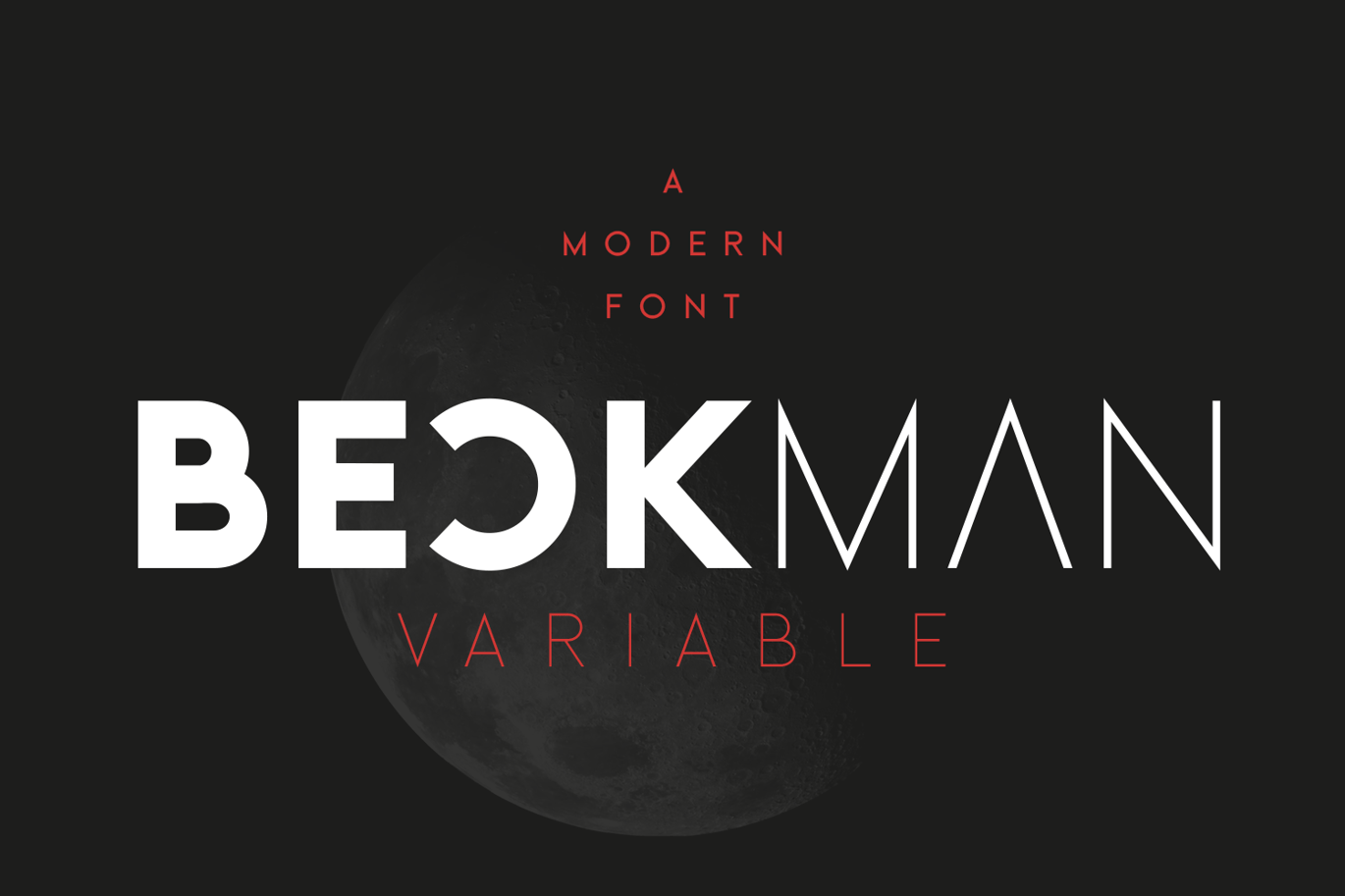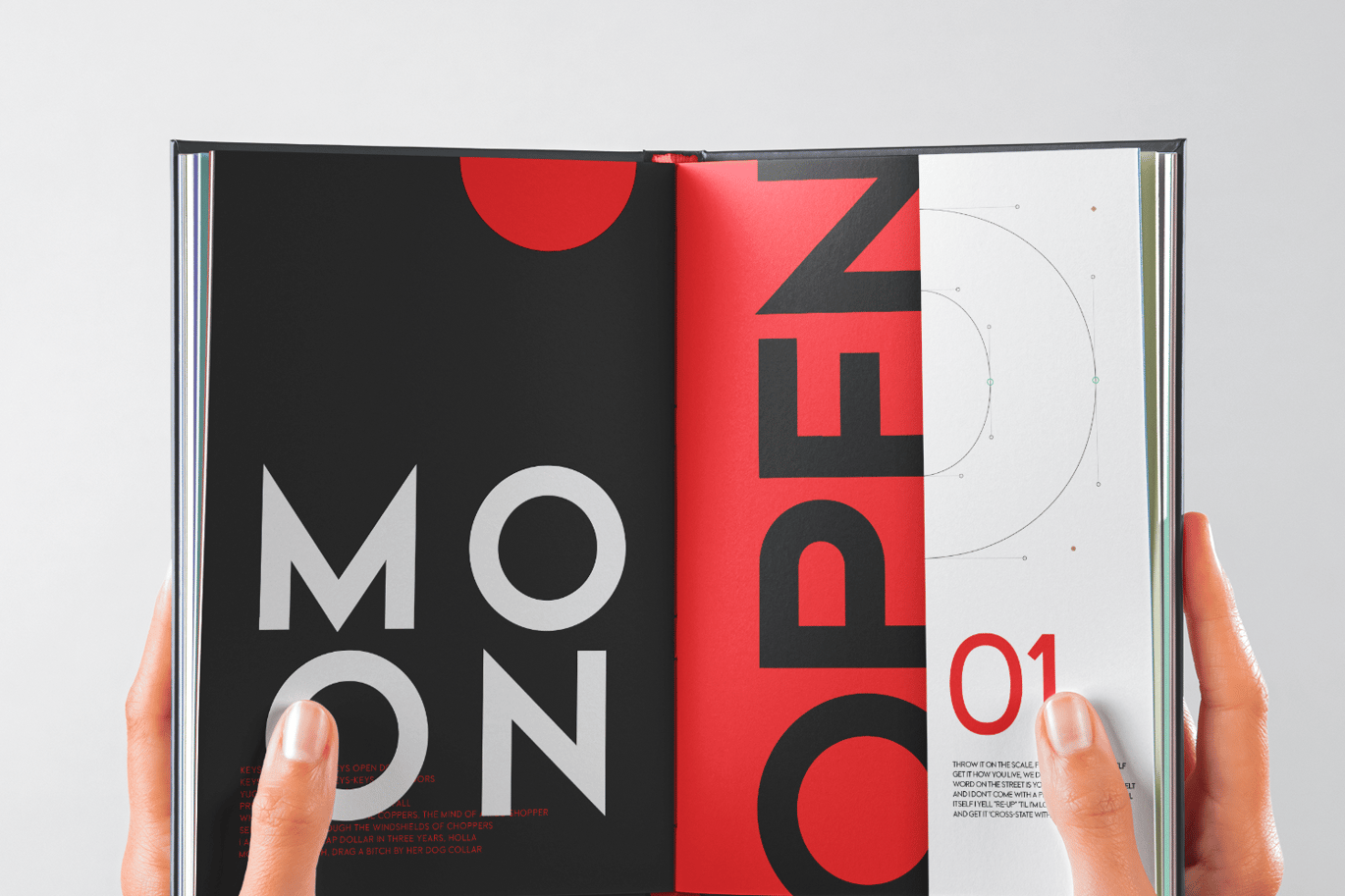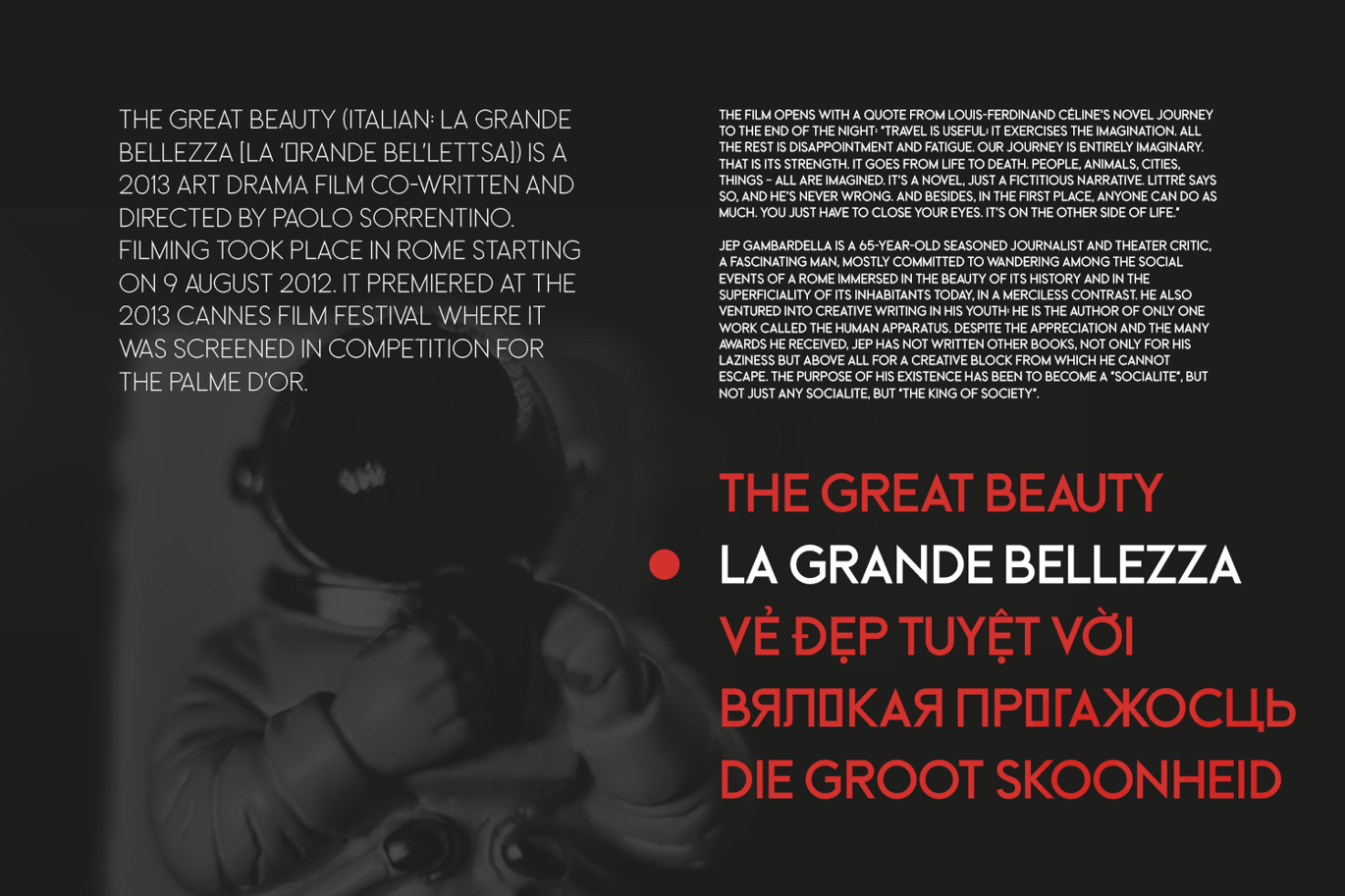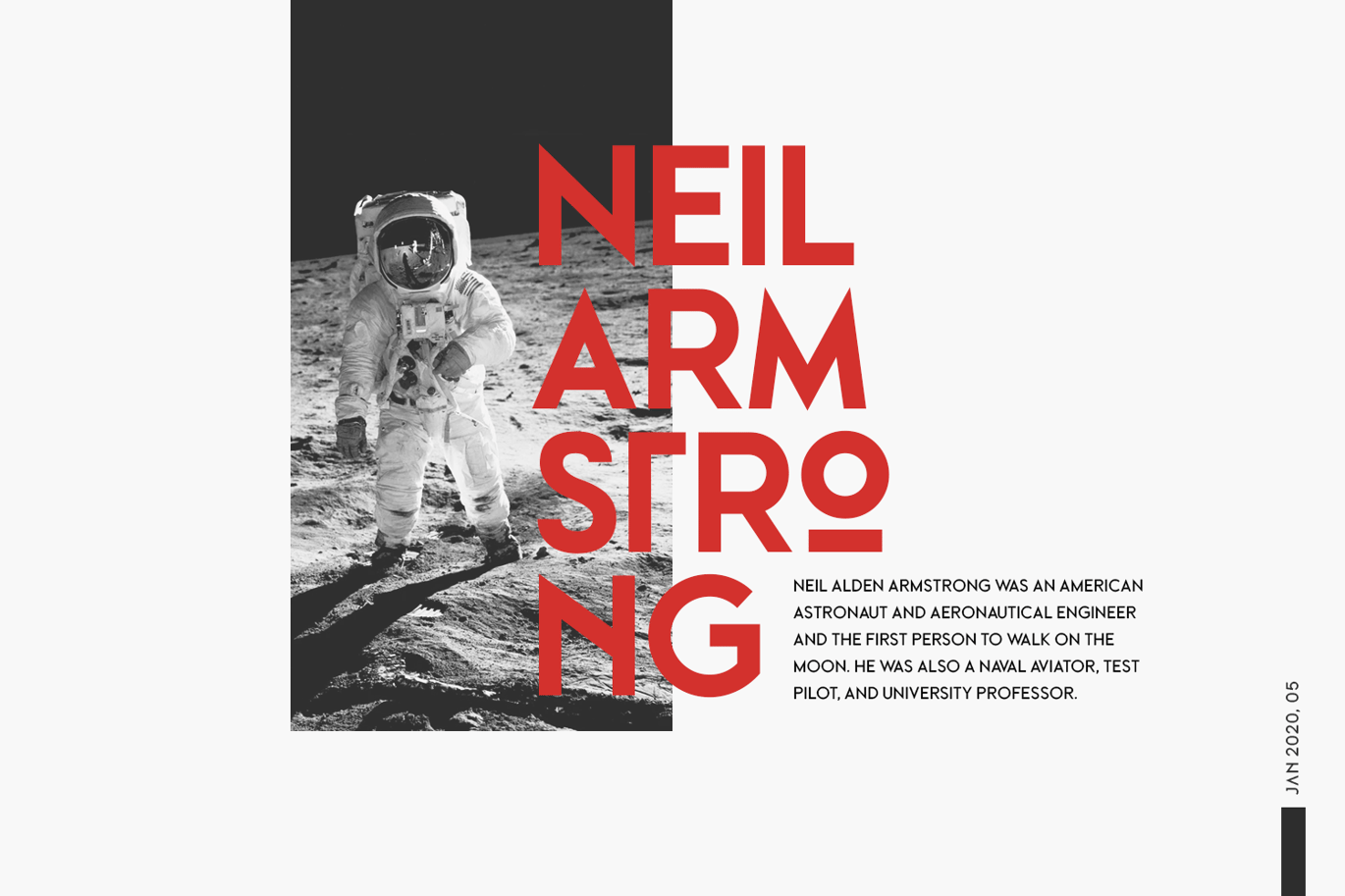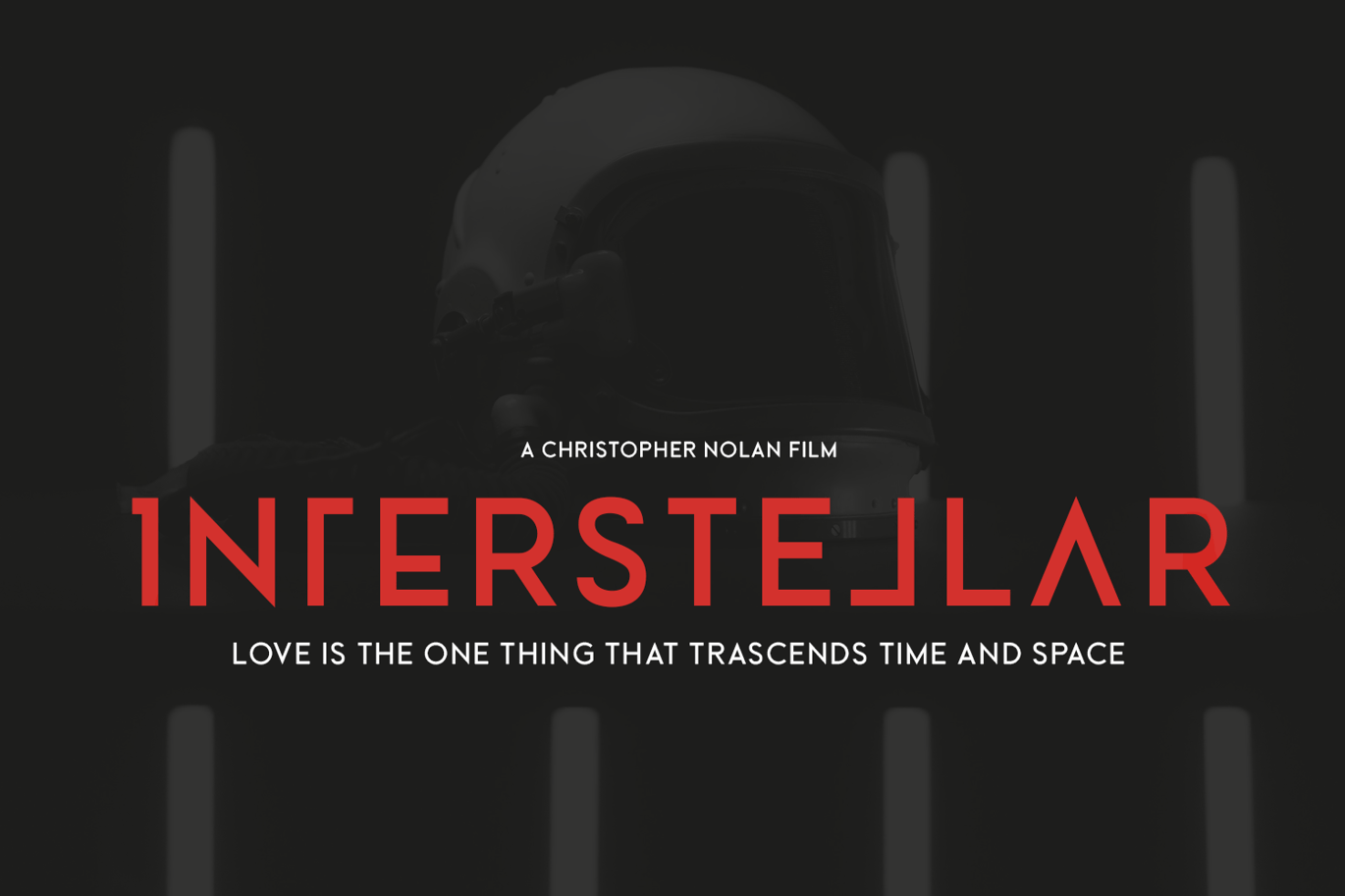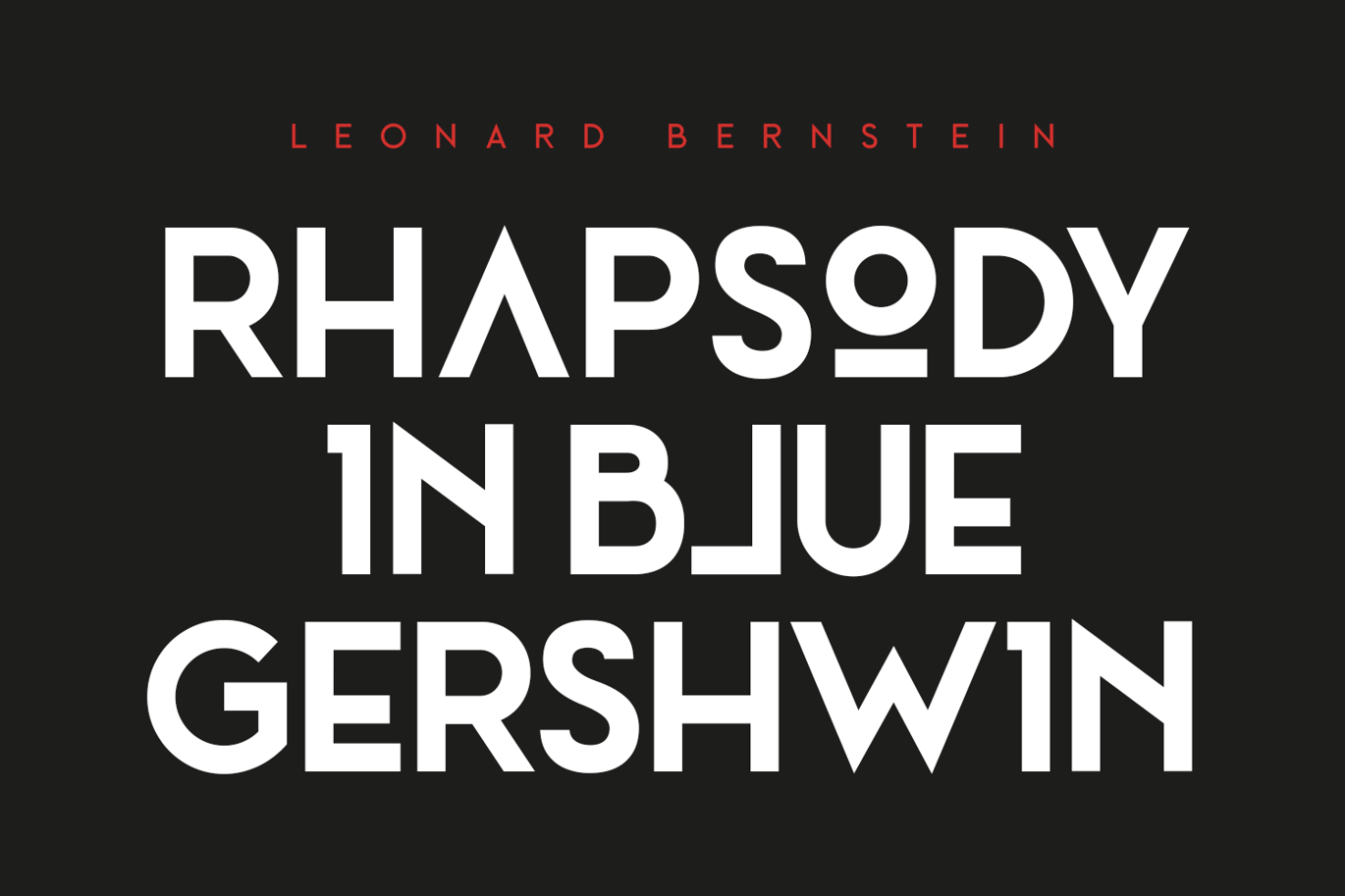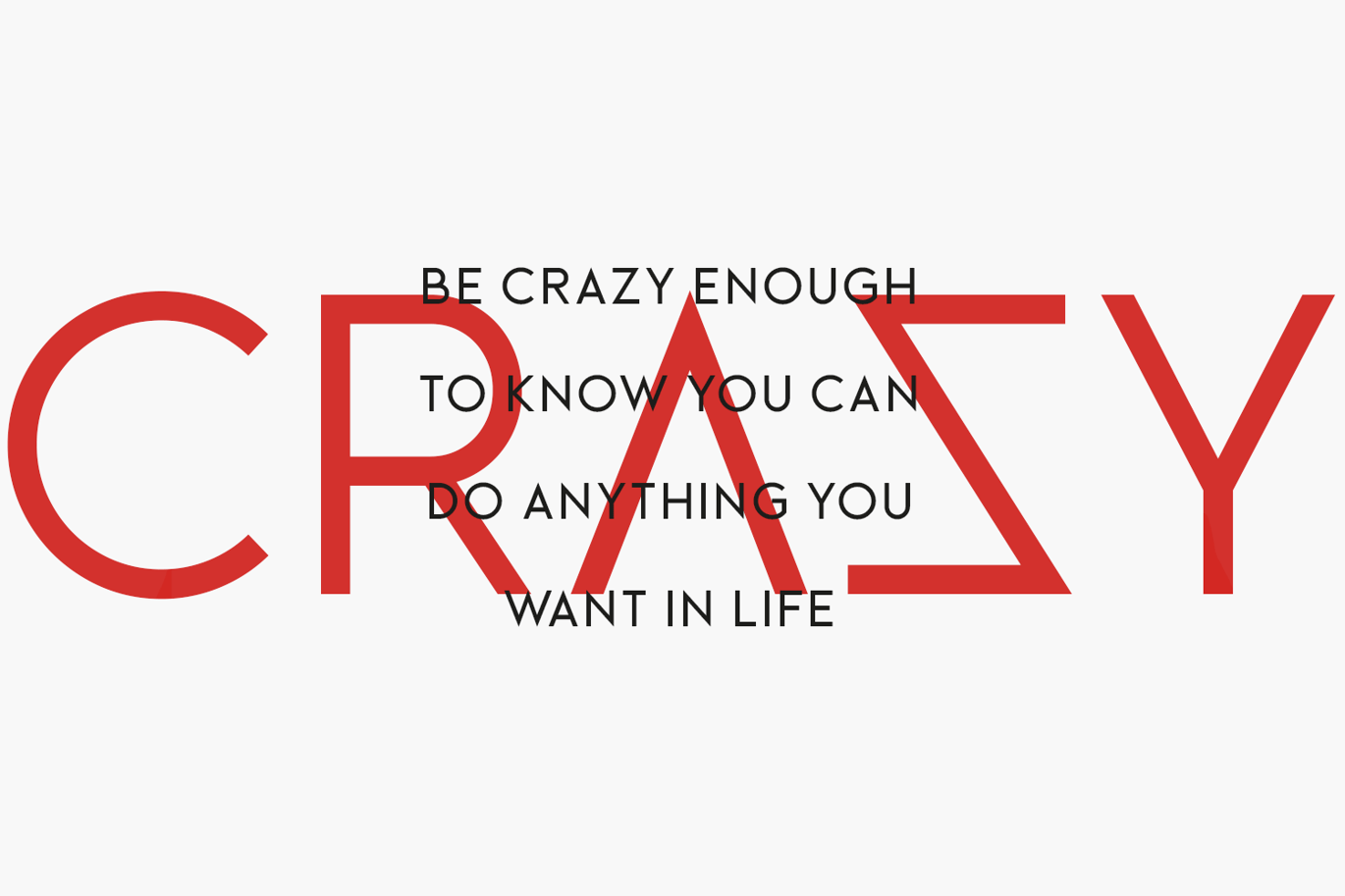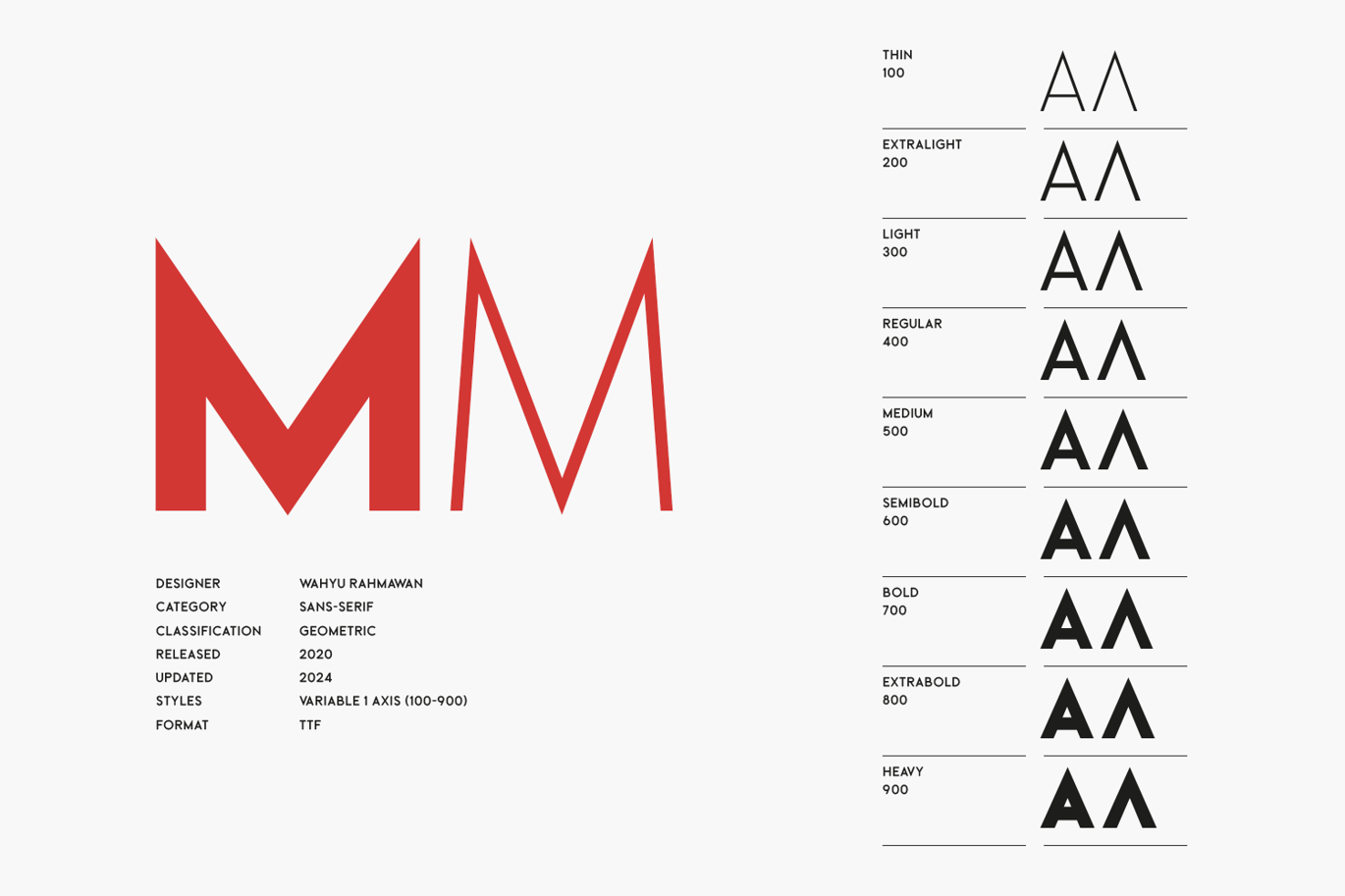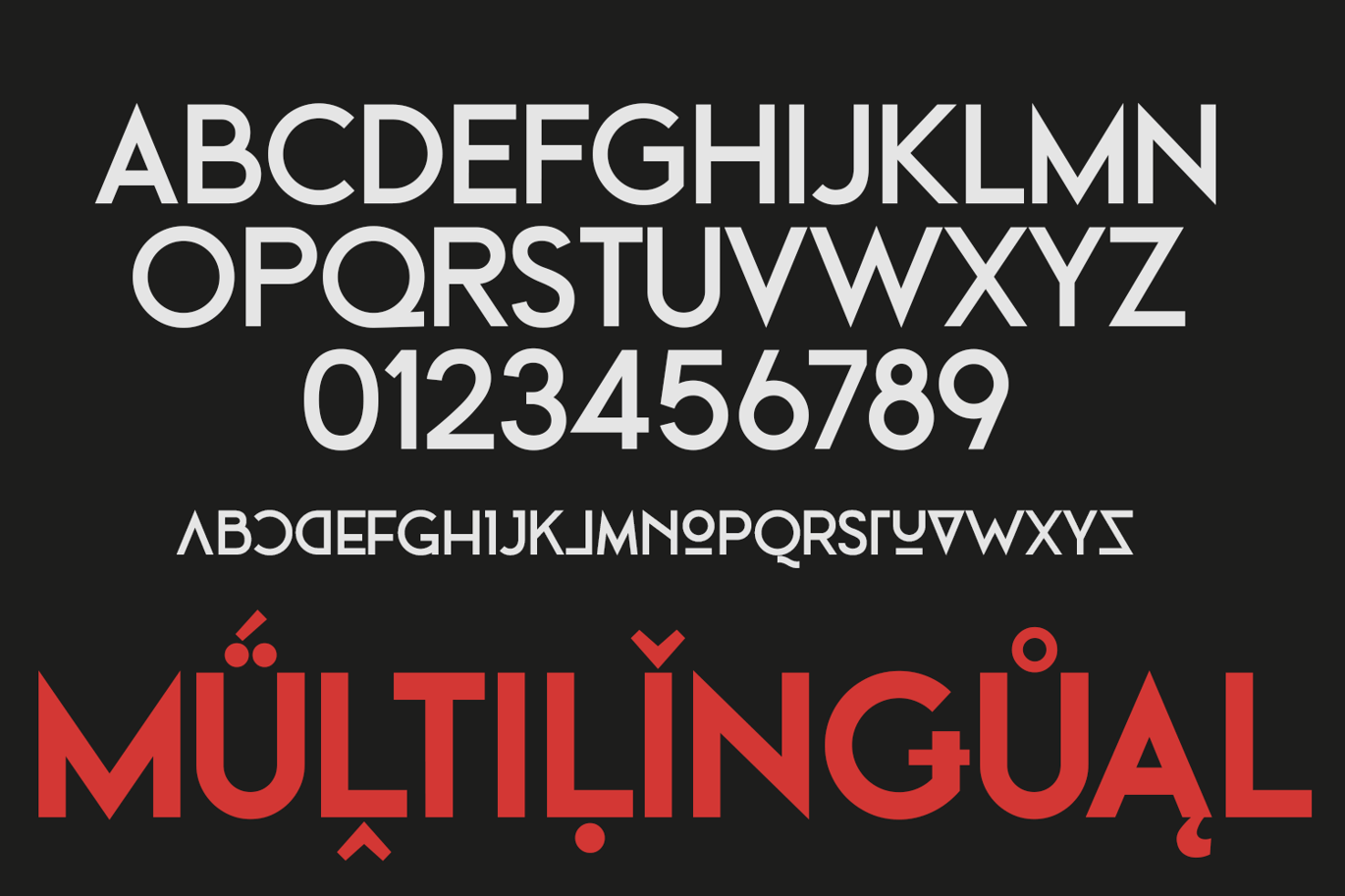
Beckman Variable Font
Beckman Variable Font is available now, a sleek, minimalist font family that blends geometric and clean design elements for a contemporary look with unlimited possibilities. It offers modern, polished capital letters that enhance versatility. Beckman is the perfect choice to elevate your headlines, branding, logos, posters, magazines, and more.
- Variable 1 Axis (weights, axis coordinates 100–900)
- 786 glyphs
- Supported Languages: Afar, Afrikaans, Aragonese, Mapuche, Asu, Asturian, Azeri, Bemba, Bena, Bulgarian, Bosnian, Catalan, Cebuano, Chiga, Corsican, Czech, Welsh, Danish, Taita, German, Lower Sorbian, Jola-Fonyi, Embu, English, Esperanto, Spanish, Estonian, Basque, Finnish, Filipino, Faroese, French, Friulian, Western Frisian, Irish, Scottish Gaelic, Galician, Swiss German, Gusii, Manx, Croatian, Upper Sorbian, Hungarian, Interlingua, Indonesian, Igbo, Ido, Icelandic, Italian, Lojban, Machame, Jju, Kamba, Tyap, Makonde, Kabuverdianu, Kaingang, Kikuyu, Kalaallisut, Kalenjin, Shambala, Colognian, Kurdish, Cornish, Latin, Langi, Luxembourgish, Ganda, Ligurian, Lithuanian, Luo, Luyia, Latvian, Meru, Morisyen, Malagasy, Makhuwa-Meetto, Maori, Malay, Maltese, Norwegian Bokmål, North Ndebele, Low German, Dutch, Norwegian Nynorsk, Norwegian, South Ndebele, Northern Sotho, Nyanja, Nyankole, Occitan, Oromo, Nigerian Pidgin, Polish, Portuguese, Romansh, Rundi, Romanian, Rombo, Kinyarwanda, Rwa, Samburu, Sangu, Sardinian, Sicilian, Northern Sami, Sena, Sango, Sidamo, Slovak, Slovenian, Southern Sami, Lule Sami, Inari Sami, Skolt Sami, Shona, Somali, Albanian, Swati, Saho, Southern Sotho, Sundanese, Swedish, Swahili, Silesian, Teso, Turkmen, Tswana, Turkish, Taroko, Tsonga, Venda, Vietnamese, Volapük, Vunjo, Walloon, Walser, Warlpiri, Wolof, Xhosa, Soga, Zulu